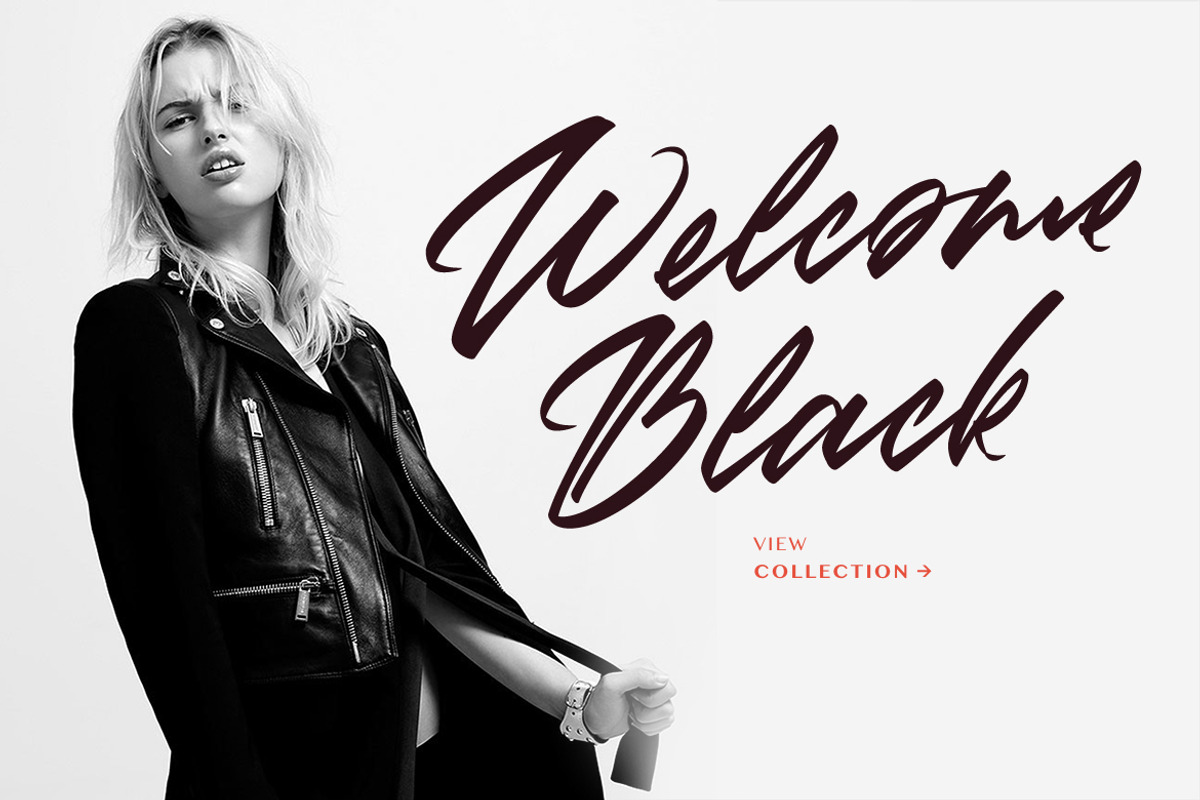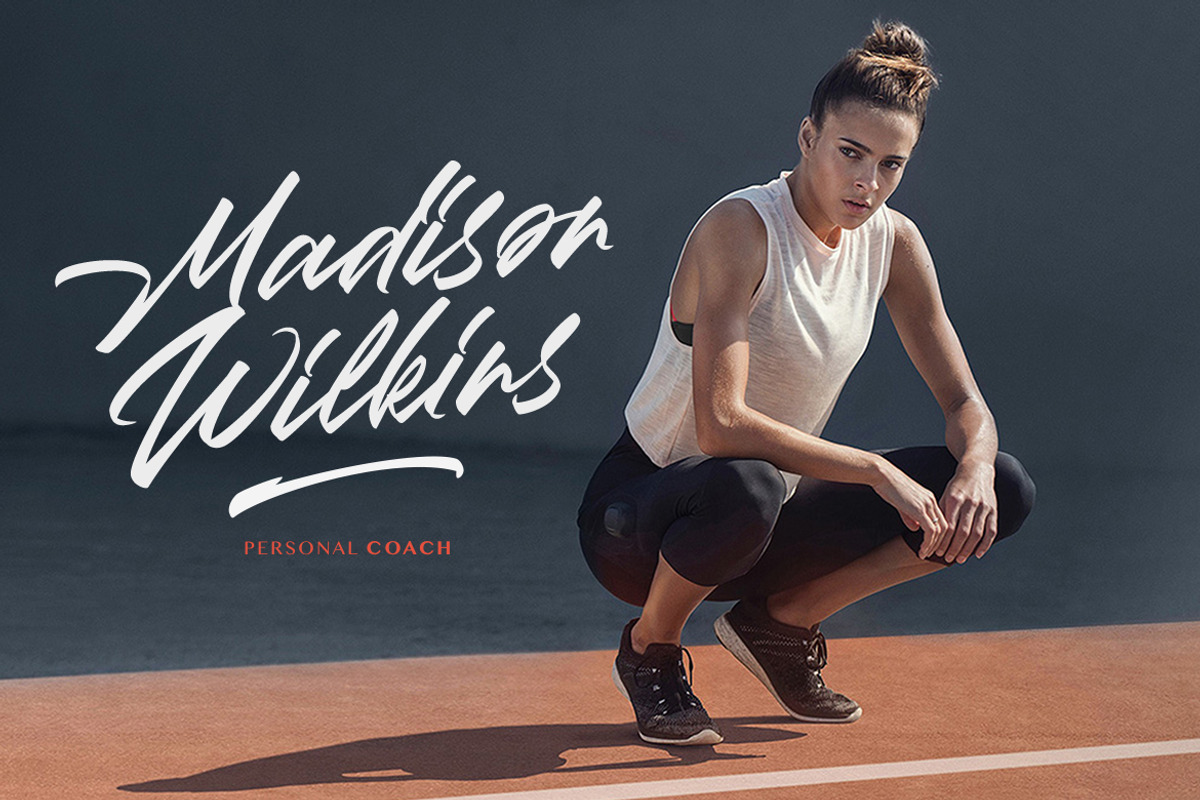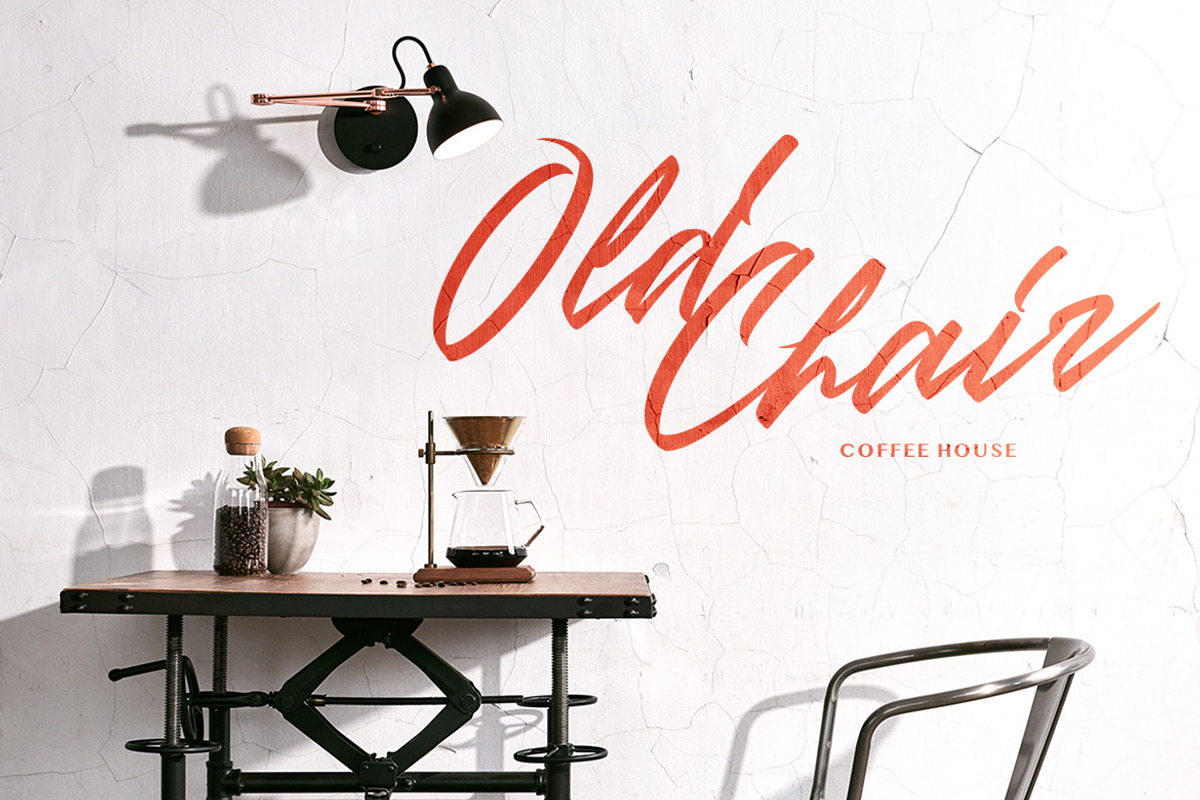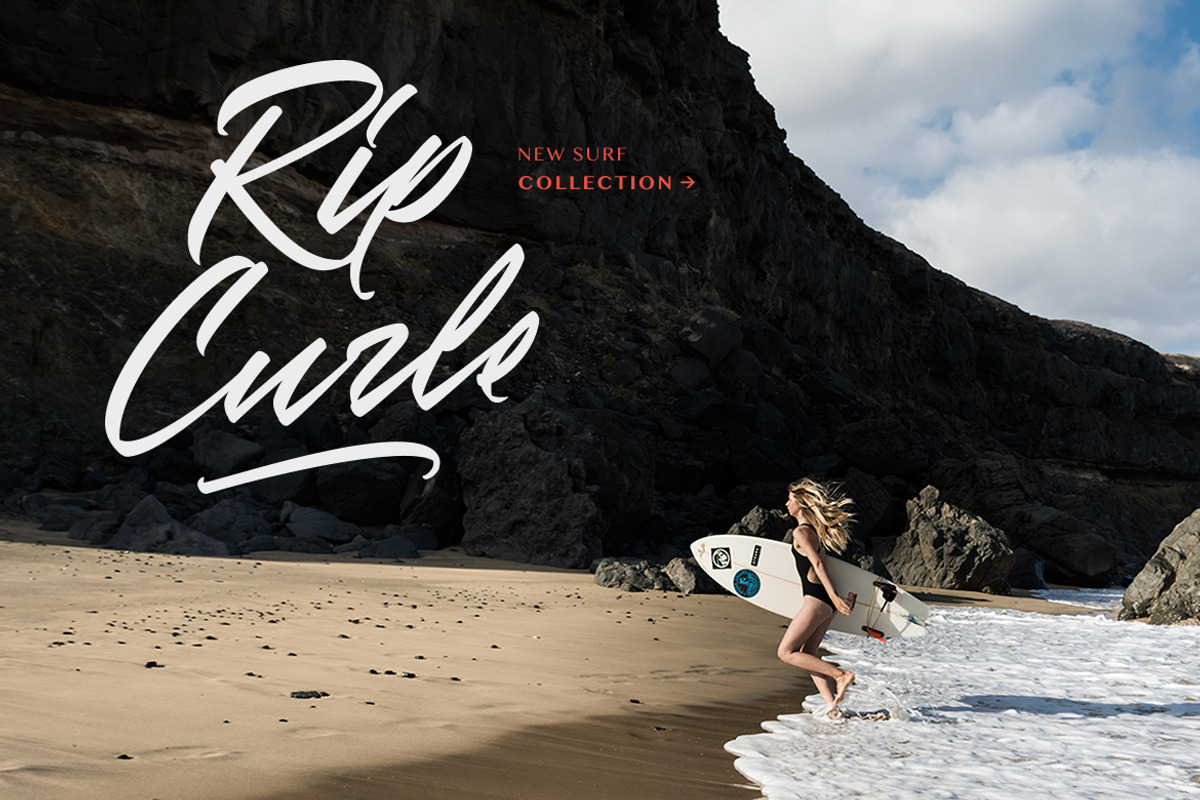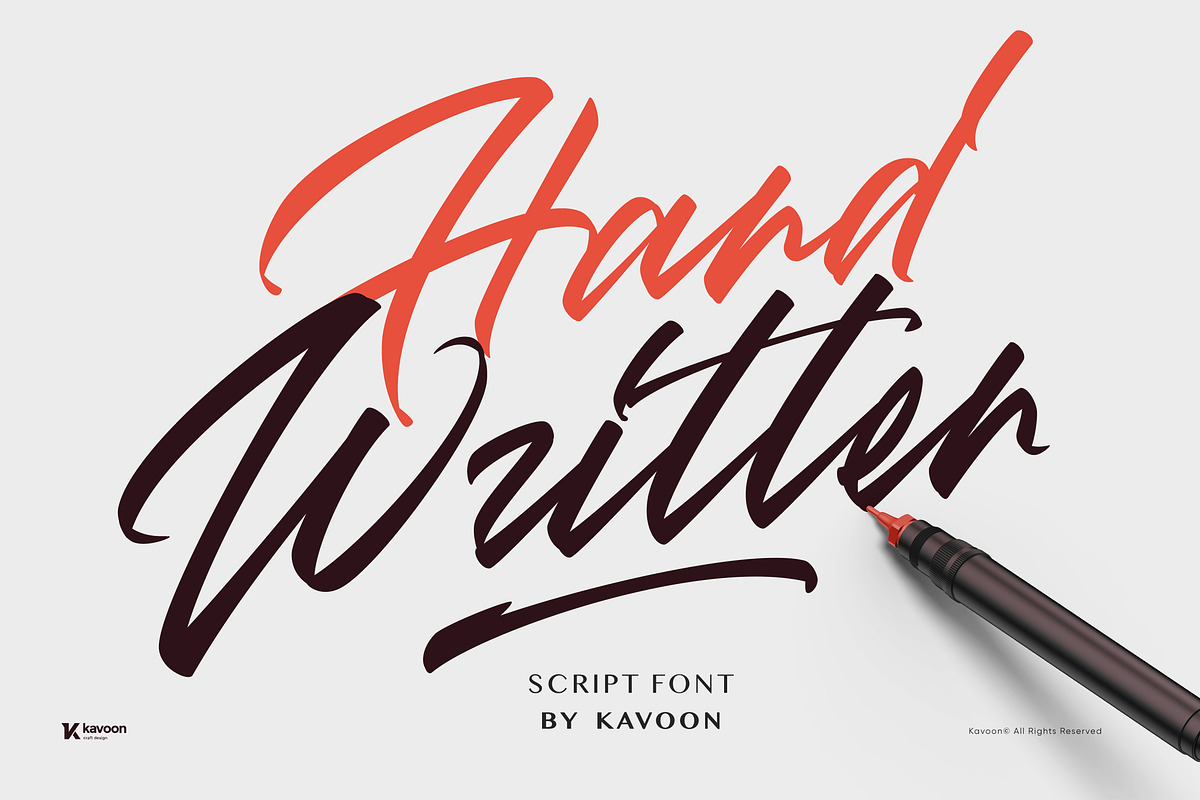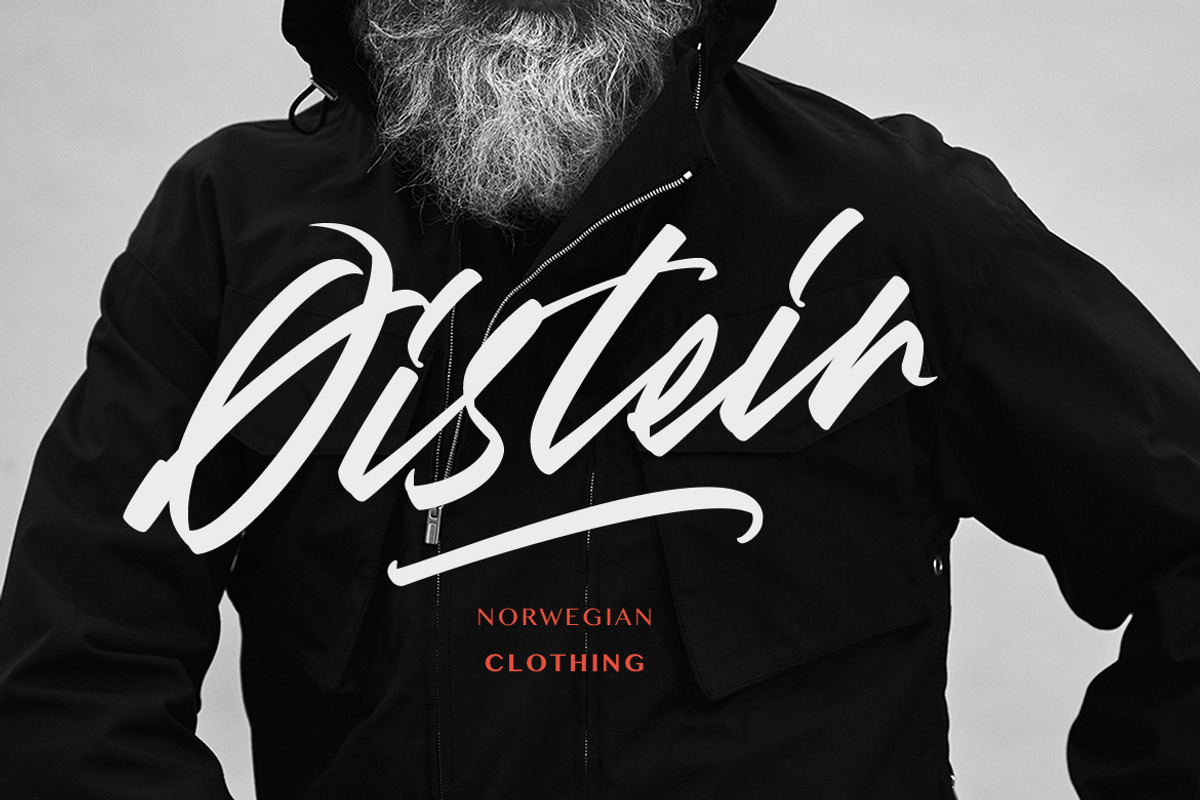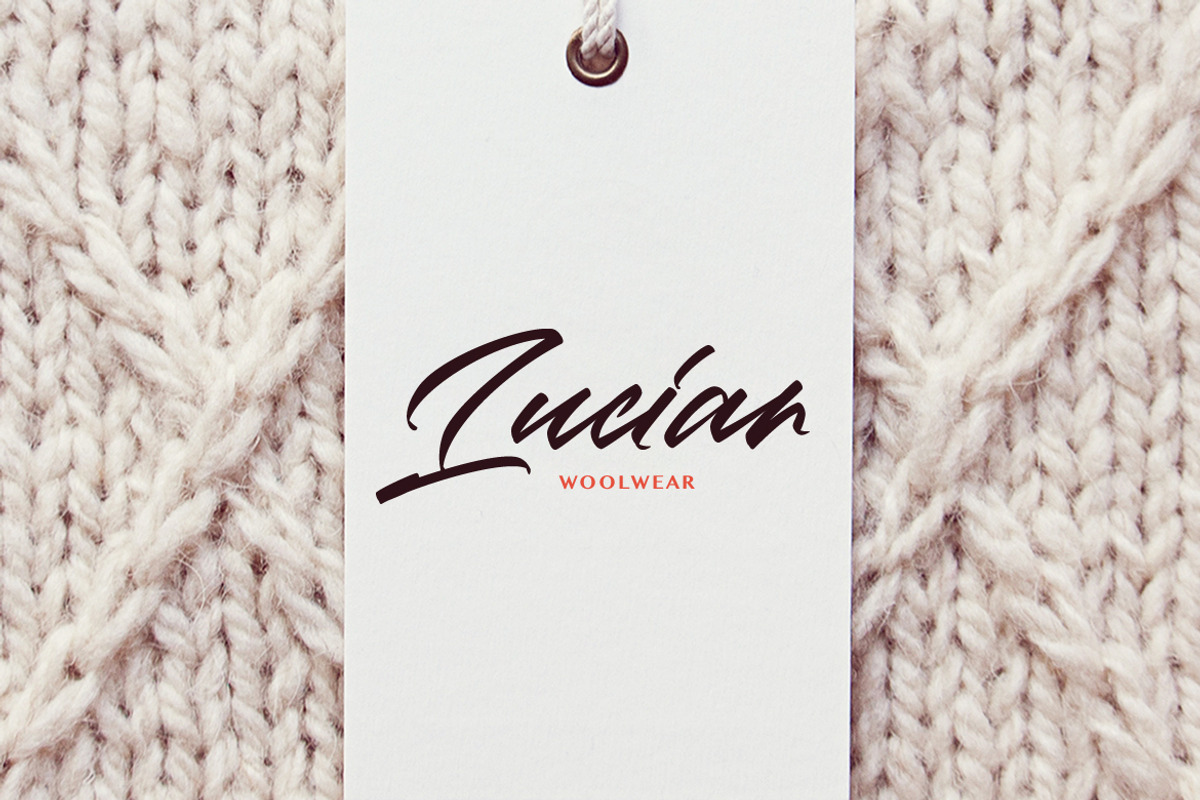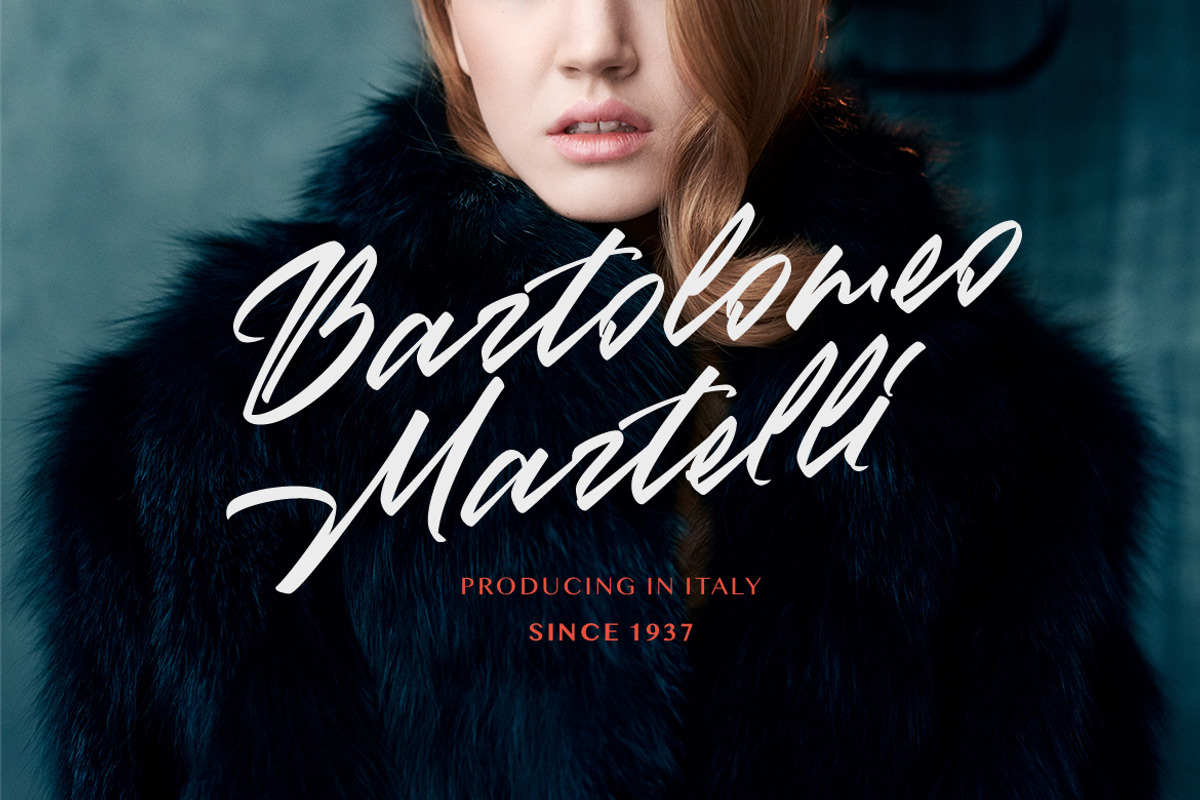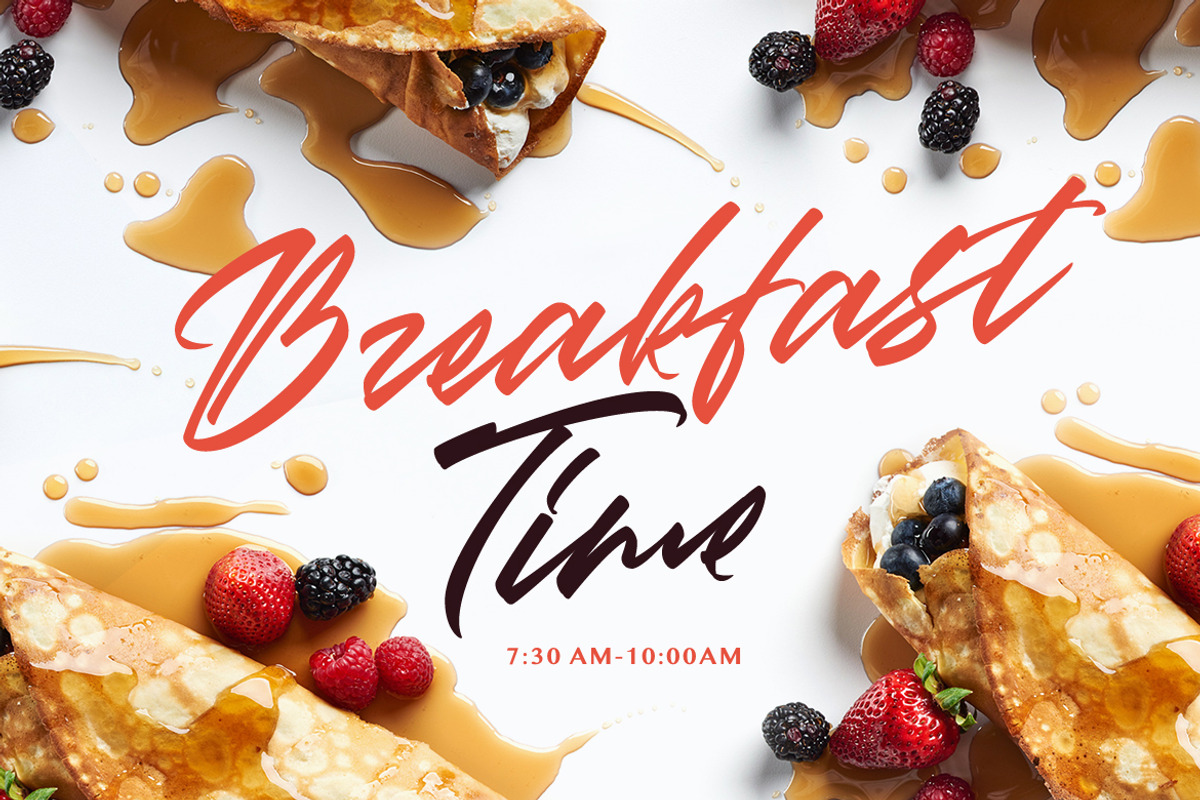
Jericho Script Font
Introducing Jericho! A rustic, dapper handwritten font with a personal charm. With quick dry strokes and a signature style, Jericho is perfect for branding projects, homeware designs, product packaging - or simply as a stylish text overlay to any background image.
You can activate Ligature and Alternates in the OpenType panel to make these two styles. It also has many alternatives and underlines that make your text and design more interesting.